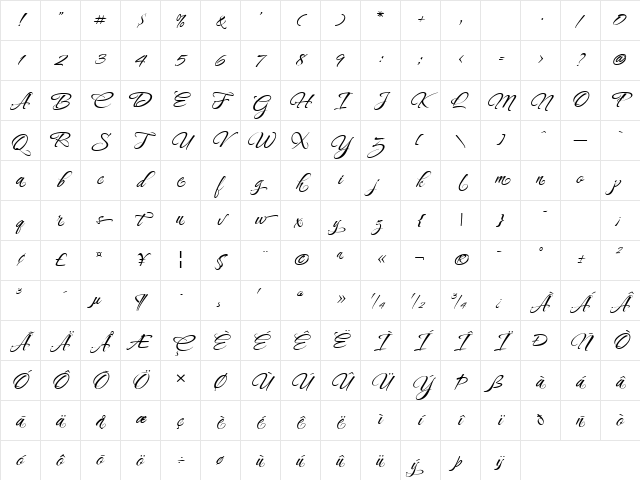
CaramelCrunch ROB
Designer: Robert E. Leuschke
Design Context for CaramelCrunch
CaramelCrunch is a composed and adaptable typeface that performs quietly and consistently across a wide range of design contexts.
Pro Tip: Use CaramelCrunch in both headline and body roles to test its range before committing to a single application.